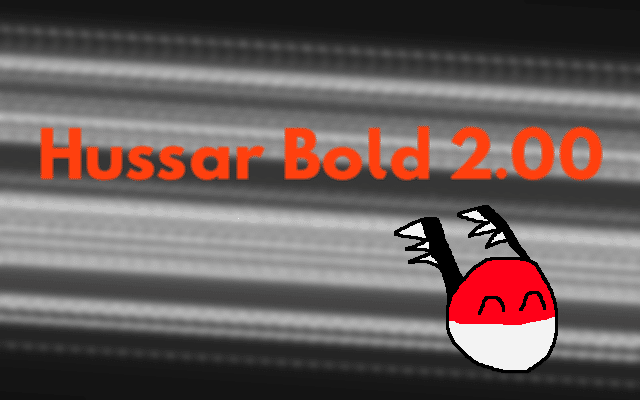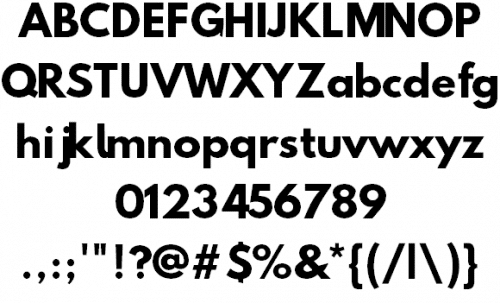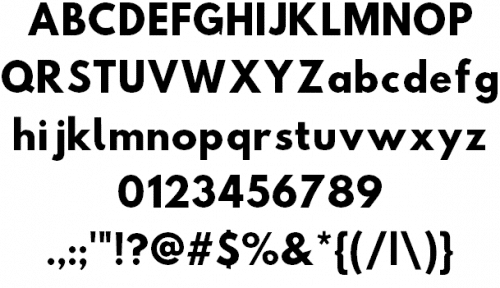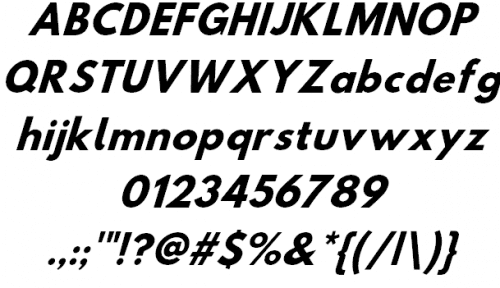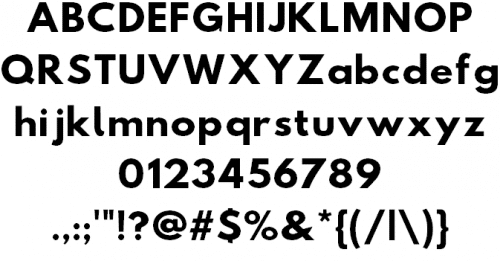
Hussar Font is based off of the Open Source font, League Spartan.
Version 2.00 is finally here! Updates include: Massive addition of characters, new “Simple” Outline Weights as the regular ones SNAFUed whenattempting to make outline versions of them, Full Greek, partial Coptic, Full Russian Cyrillic, partial other Cyrillic, Full Nordic Rune support, Real working OpenType feature Ligatures, Small Caps, and Stylistic Alternates.